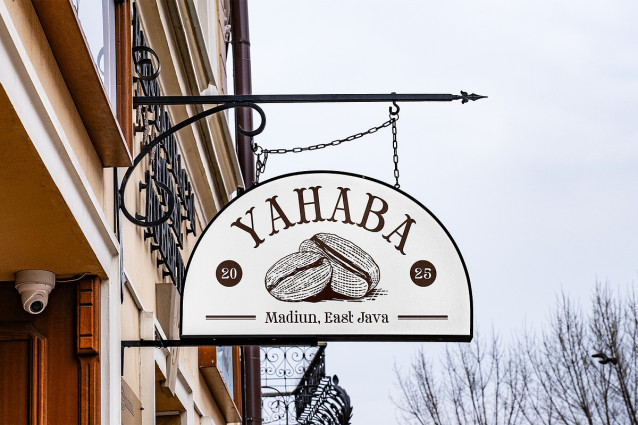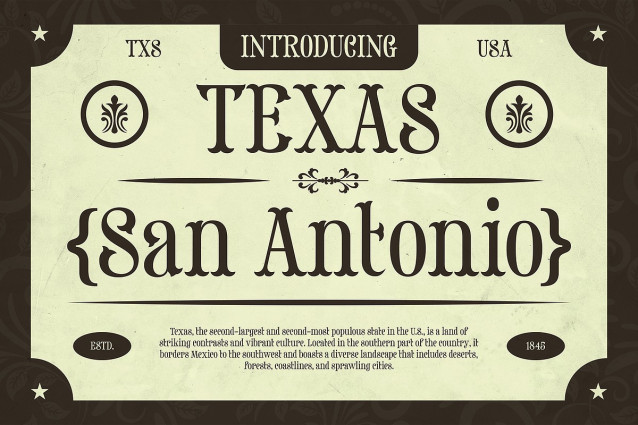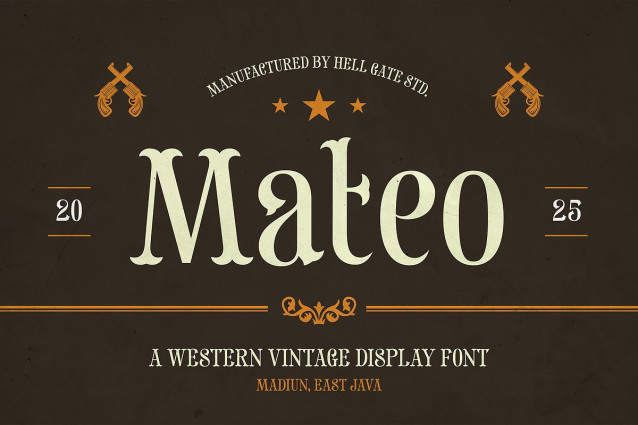
Mateo Vintage Font
Mateo Vintage Font is a captivating Western Vintage Display Font crafted with a bold and robust appeal. Perfectly suited to projects with a Western flavor, Mateo brings with him a hefty dose of strong attitude. The Mateo Western Display font is not just pleasing to the eye but also offers effortless text and color editing. The high-quality render shines through in every application, ensuring that your typographic work stands out. Your download includes an OTF file, ready for use. Mateo, a harmony of vintage charm and contemporary design. Life is too short for boring fonts. Make a statement with Mateo Western Display Font.